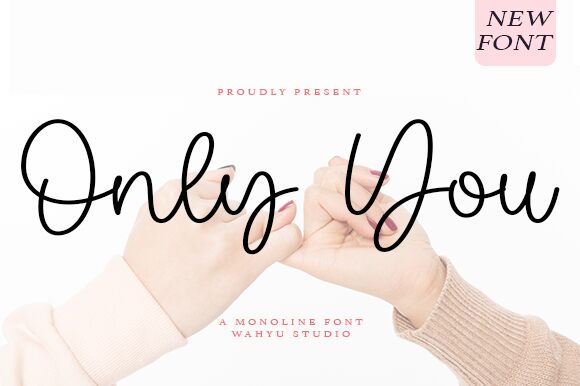
Only You
Only You is a captivating handwritten font crafted by Wahyu Studio. This light, fluid script exudes a sense of effortless elegance, seamlessly blending the refined and the casual. The organic, free-flowing strokes convey a warm, personal touch, inviting the viewer to engage with the text on a deeper level. The font's subtle imperfections lend an authentic, artisanal quality, elevating any design with a touch of refined charm.
The versatility of Only You makes it a versatile choice for a wide range of applications, from editorial layouts and branding materials to personalized stationery and wedding invitations. Its distinctive character and natural flow can breathe life into headlines, subheadings, and even body text, creating a cohesive and visually striking aesthetic. Whether you're seeking to add a touch of personal flair or to evoke a sense of timeless sophistication, Only You by Wahyu Studio is a font that truly stands out.